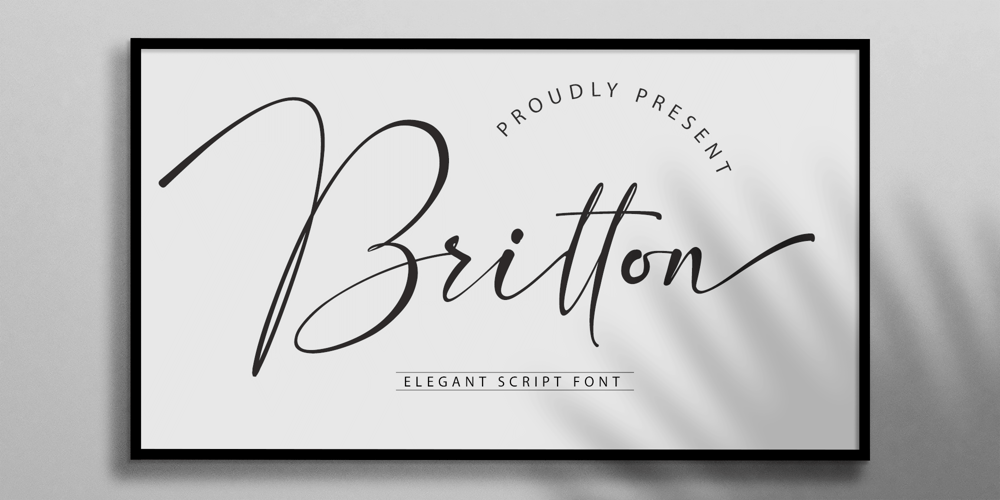
Britton Font Family was designed by Reza Mukhtazar and published by Rezastudio. Britton contains 1 styles and family package options. is an organic handwritten font that is suitable for branding, signature, wedding invitation, promotion, product packaging, and other needs. This font is modern, simple, but still authentic.You will get full set of lowercase and uppercase letters, numerals and punctuation, multilingual symbols, lowercase beginning and ending swashes, ligatures and extra swashes. I hope you enjoy this font. If you have any questions please don’t hesitate to drop me a message :)Thank You 🙂